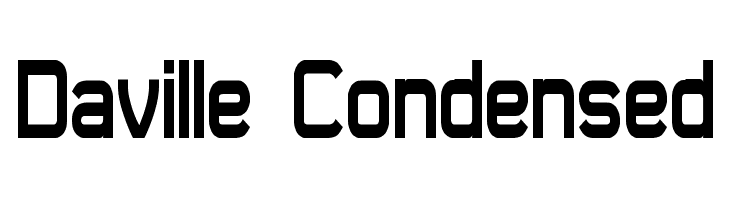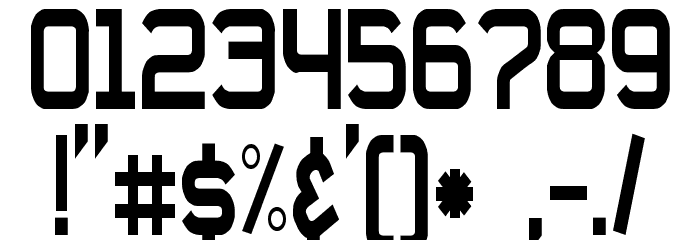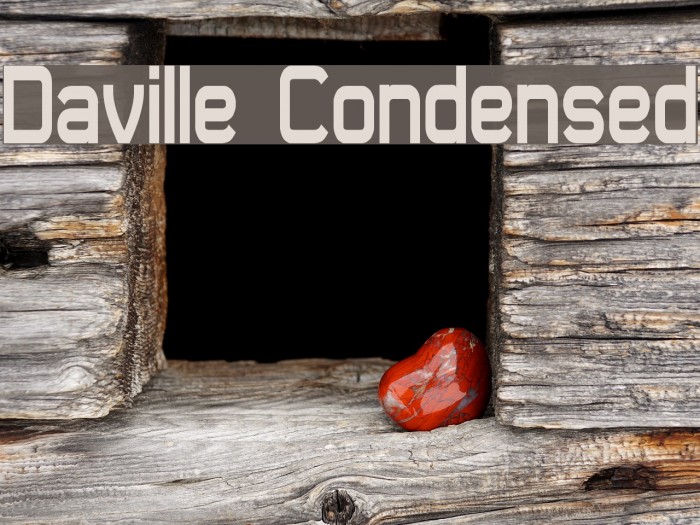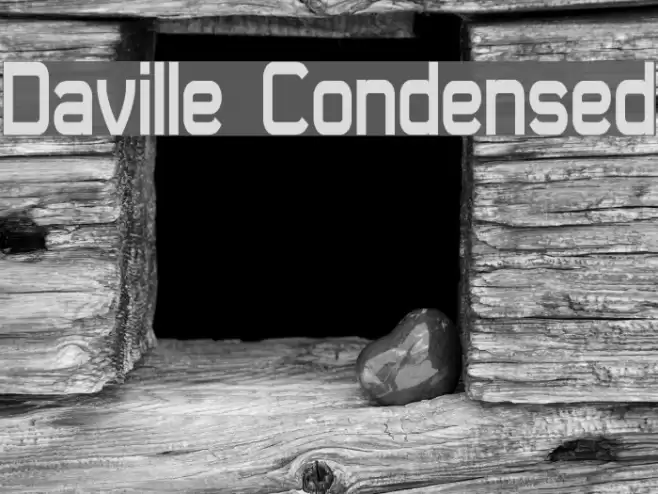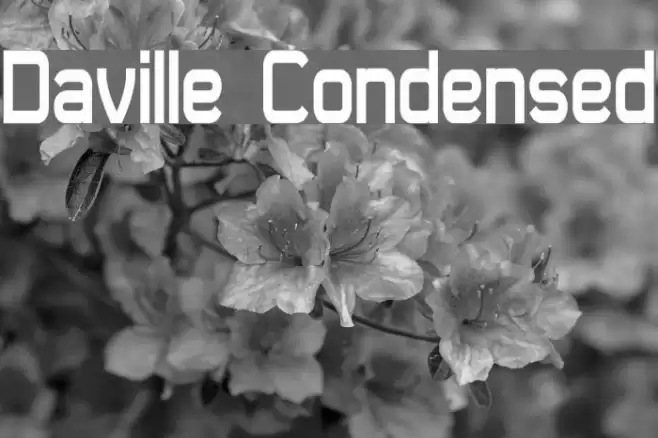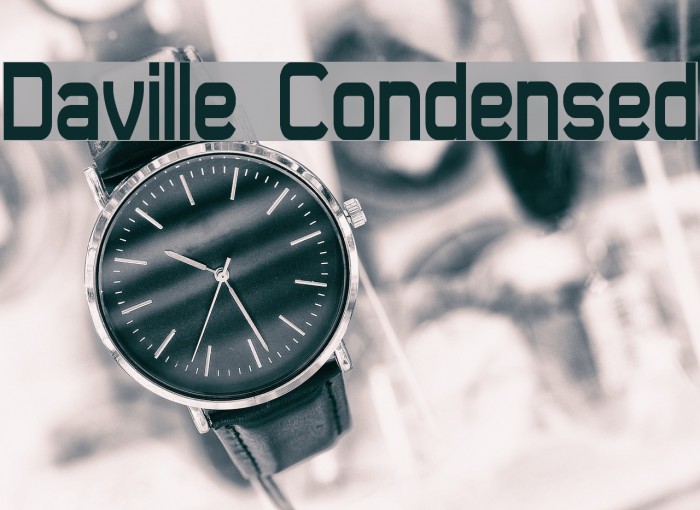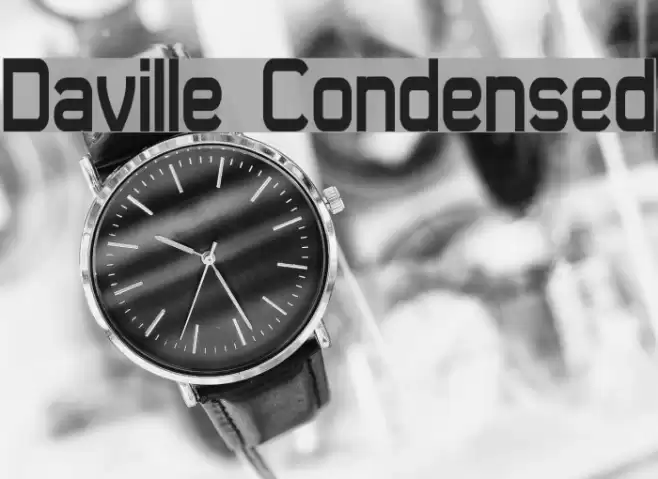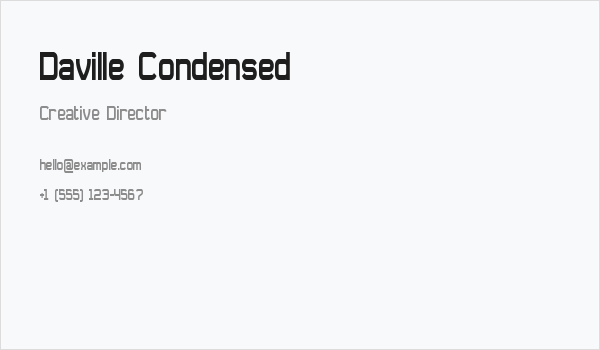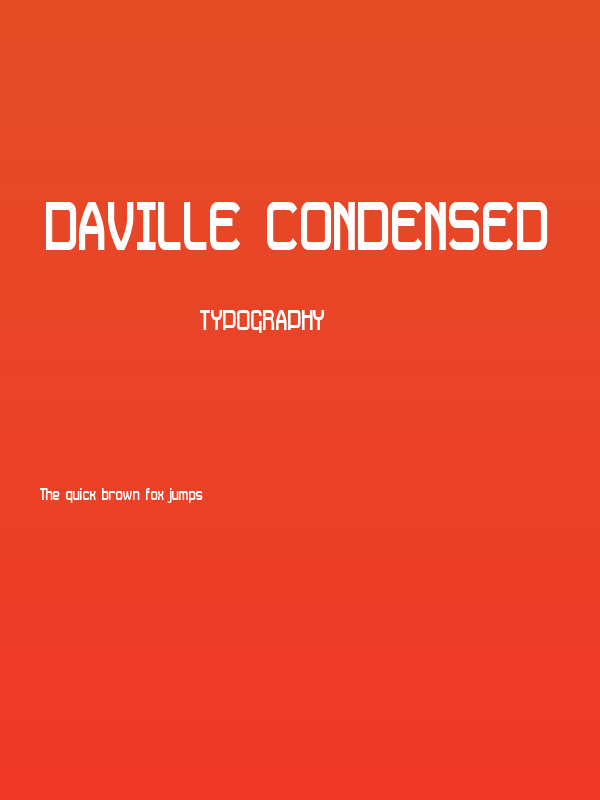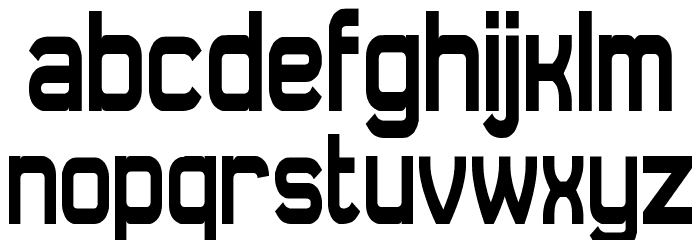
Daville Condensed Font
Daville Condensed Description
This font exhibits a bold and geometric design with a condensed structure, making it highly suitable for modern and impactful visual presentations. The characters are uniformly thick, providing a strong and assertive appearance. The uppercase and lowercase letters maintain a consistent style, with sharp angles and clean lines that enhance readability. The numerals and special characters are designed to match the overall aesthetic, ensuring a cohesive look across different uses. Its condensed width allows for efficient use of space, making it ideal for headlines and titles where space is limited.
| Proposed Projects | This font is perfect for branding, advertising, posters, and any project requiring a strong visual impact. |